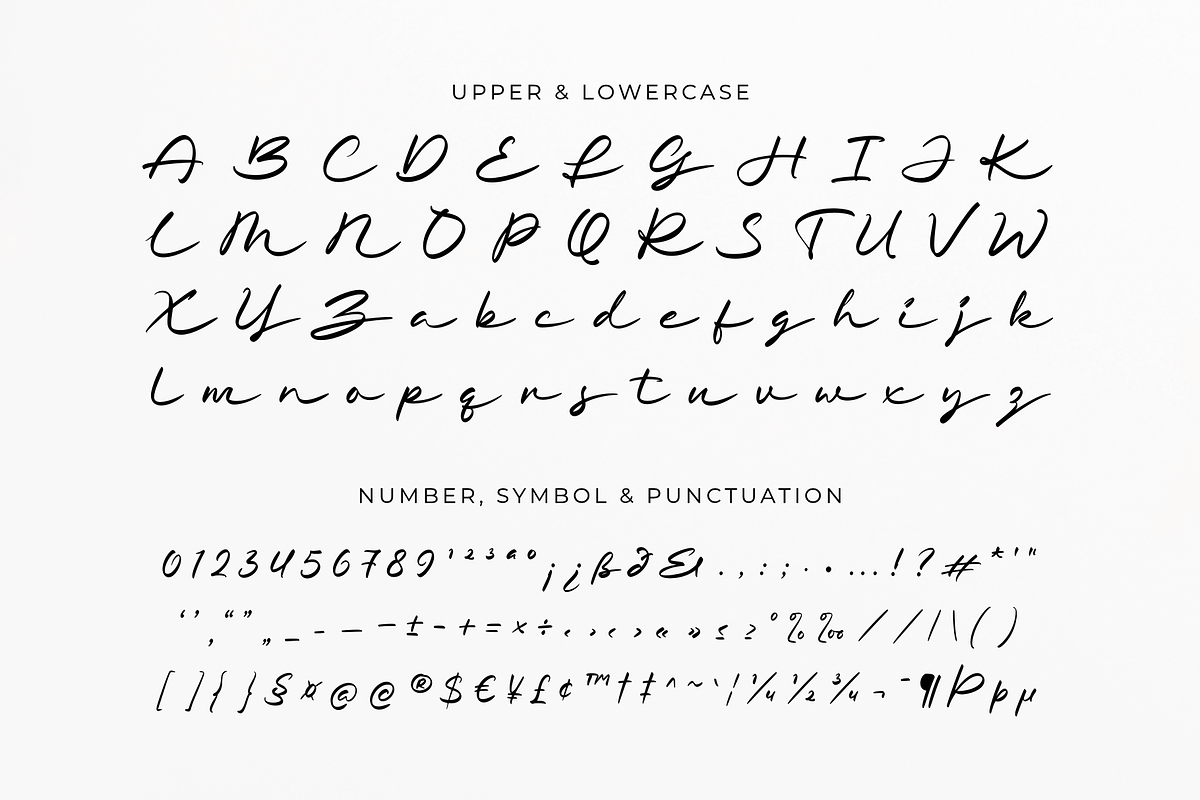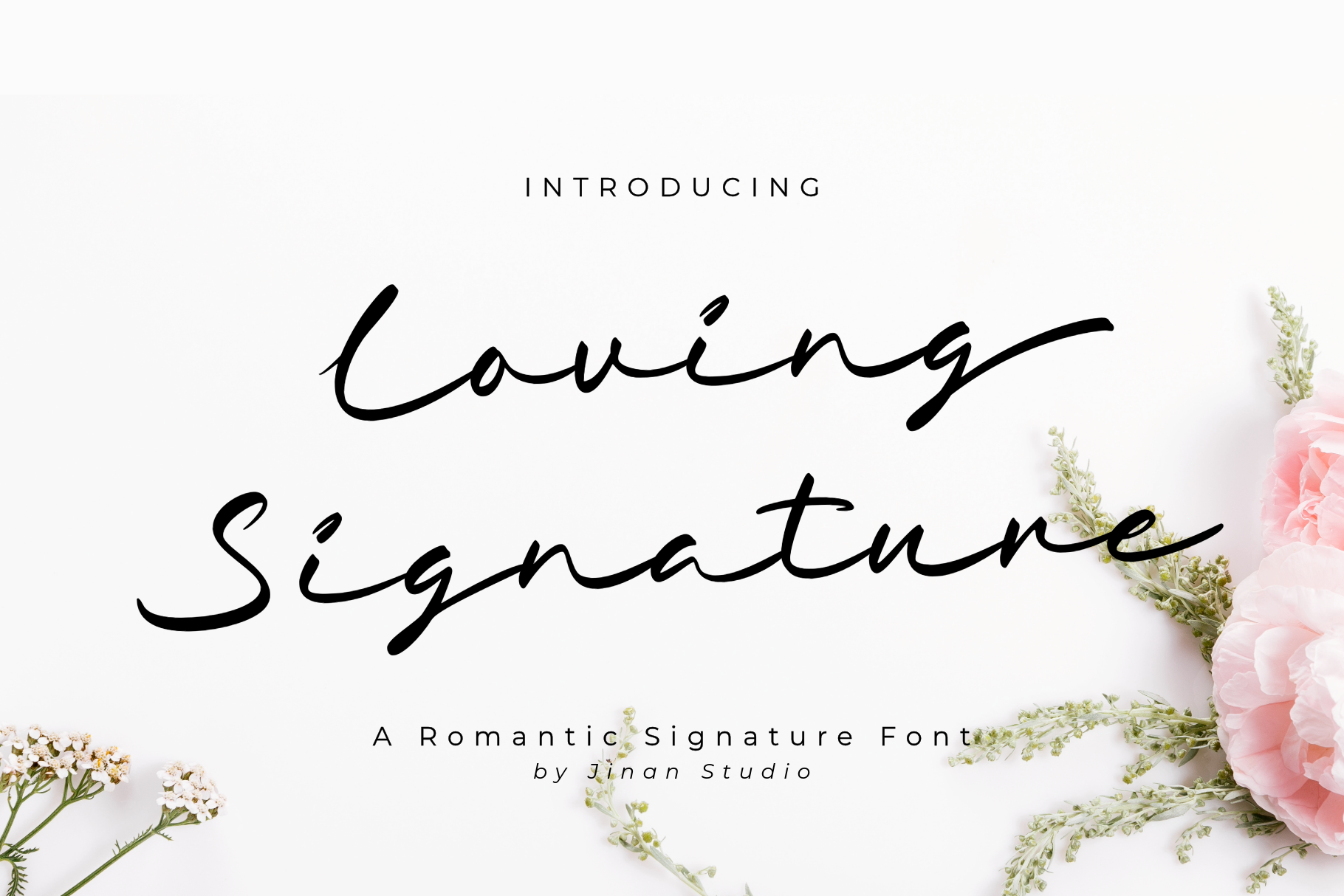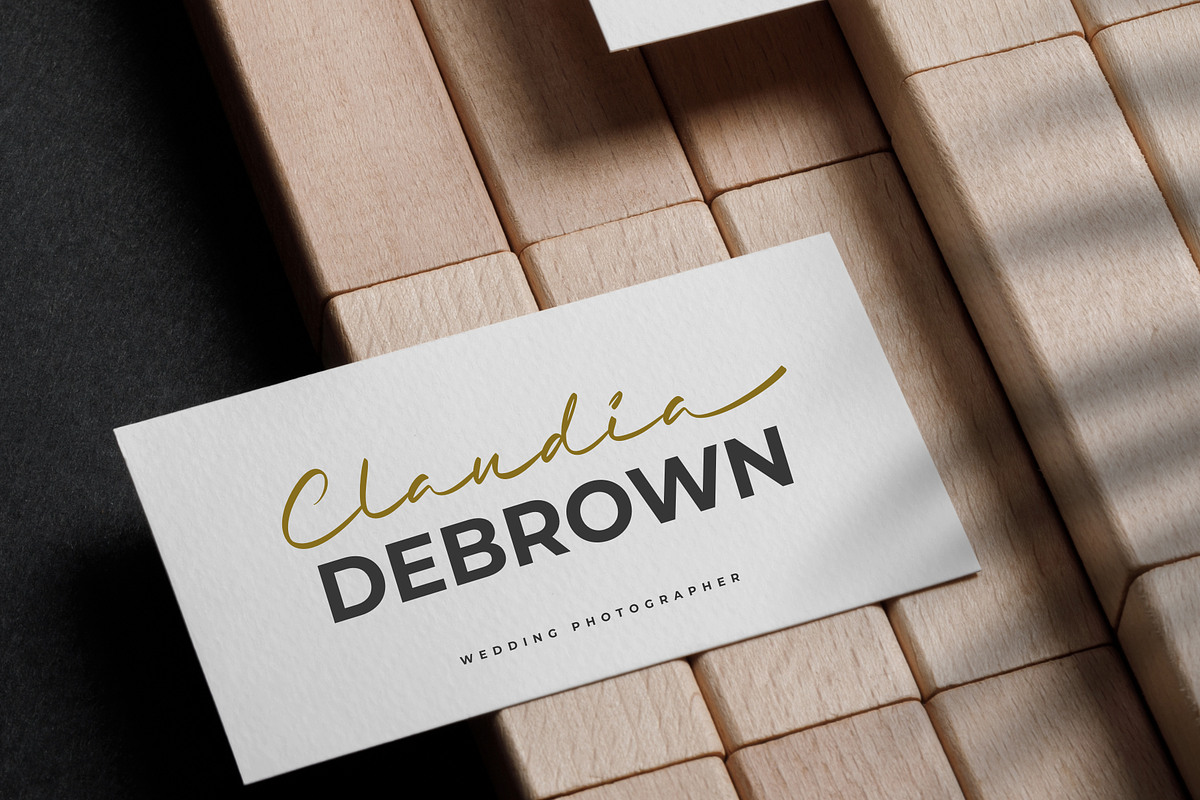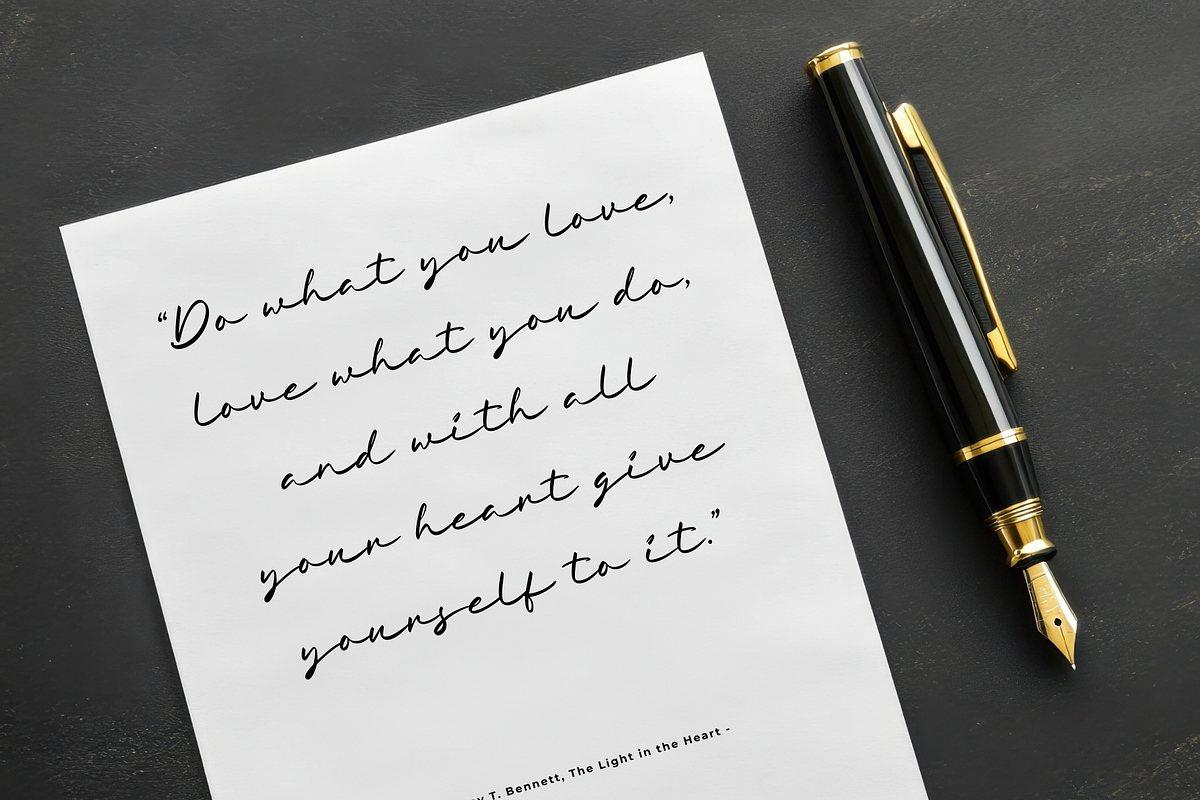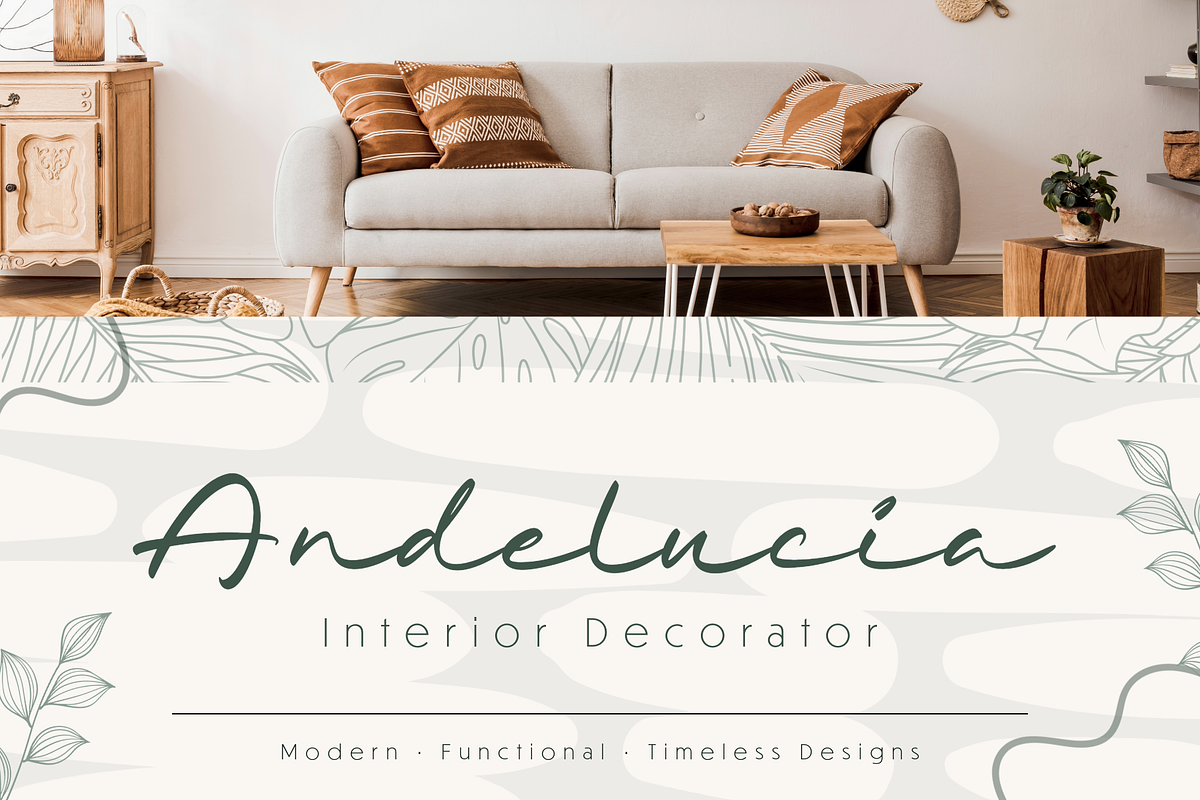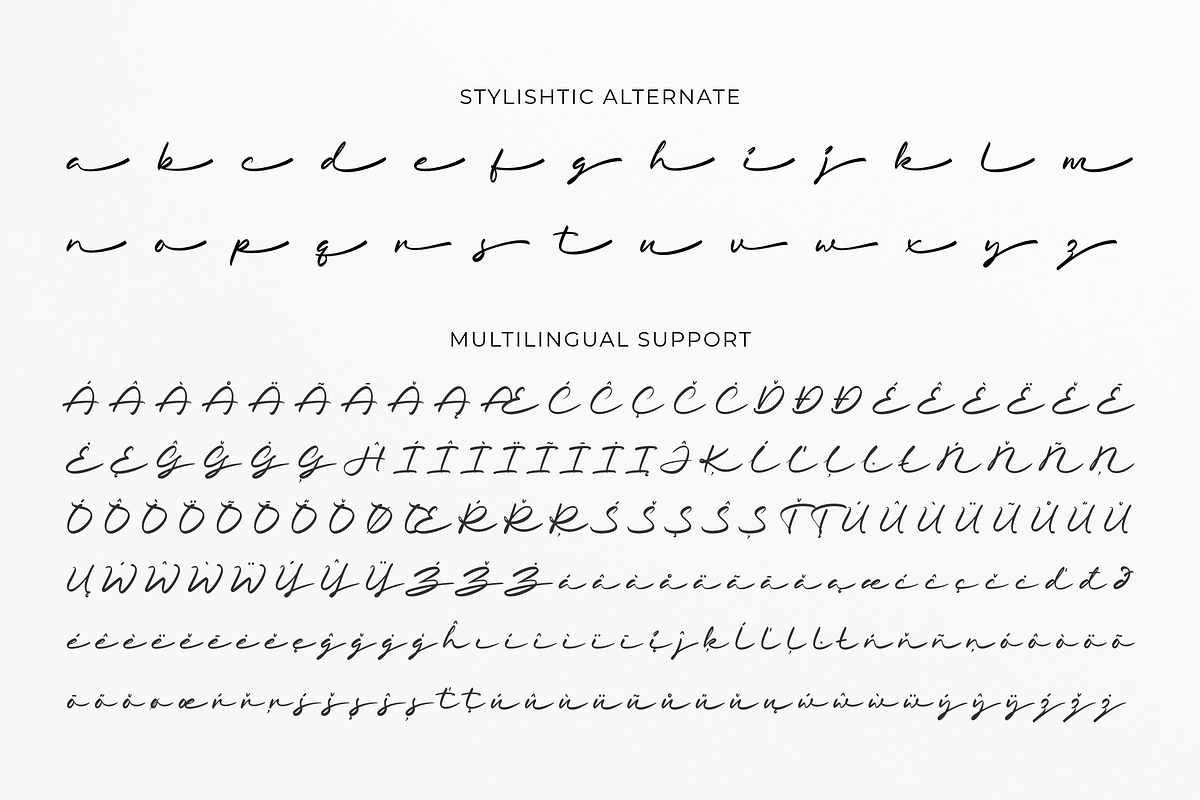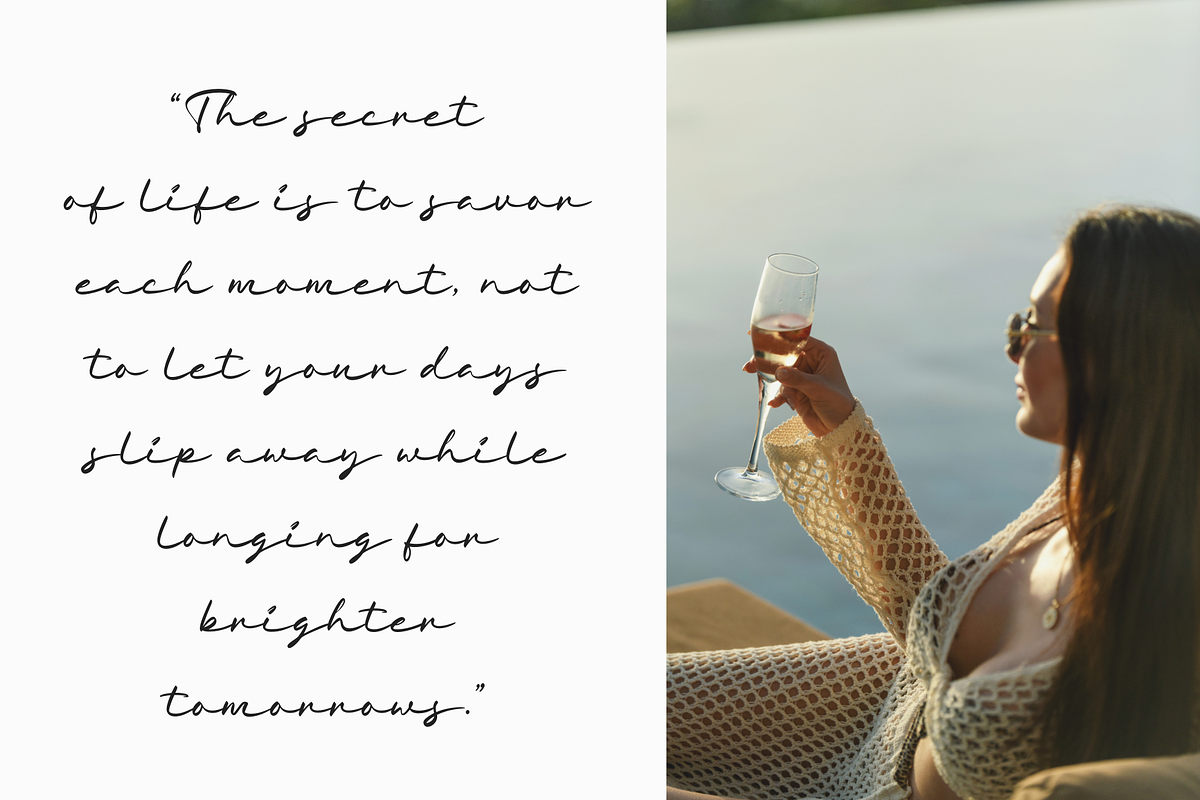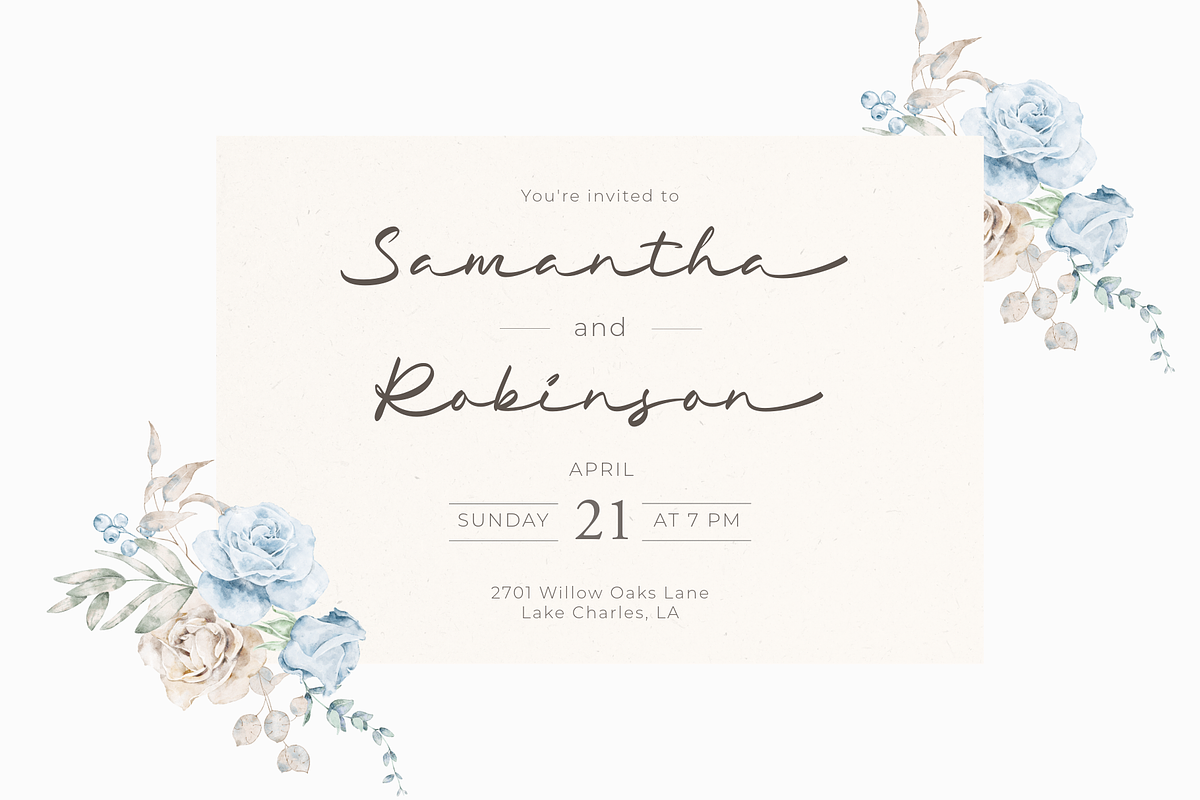
Loving Signature -A Handwritten Font
Loving Signature is a classy signature script with an elegant handwritten flow. Perfect for wedding quotes, invitations, logos, and branding projects that need a romantic and stylish touch. Includes beautiful ending swash alternates for a timeless look.
- A set of uppercase and lowercase glyphs
- Number, symbol, and punctuation